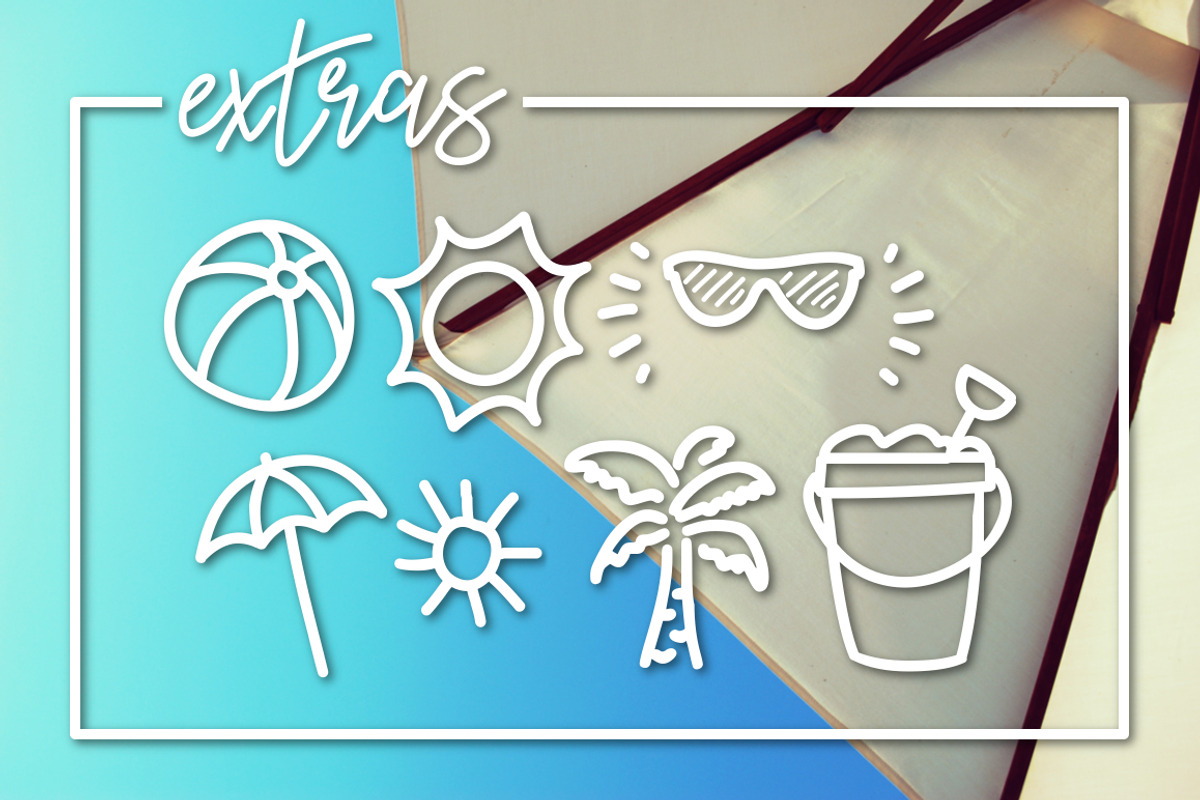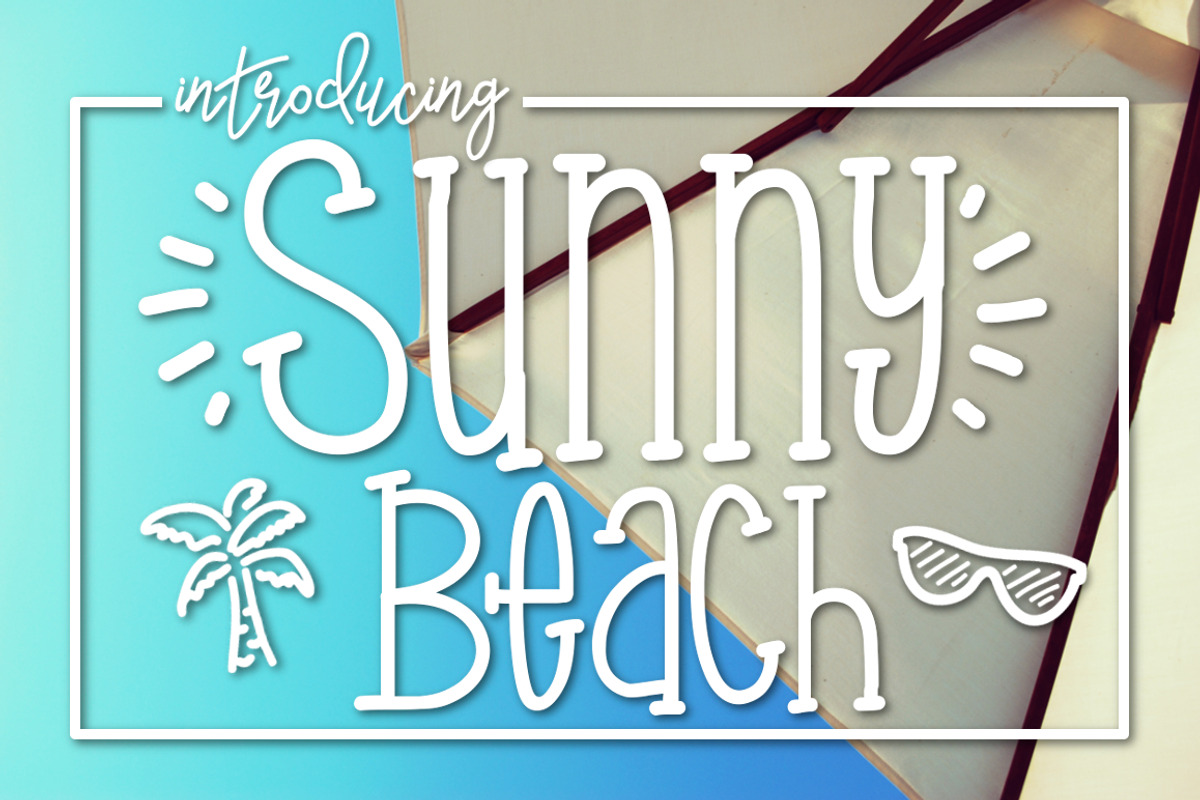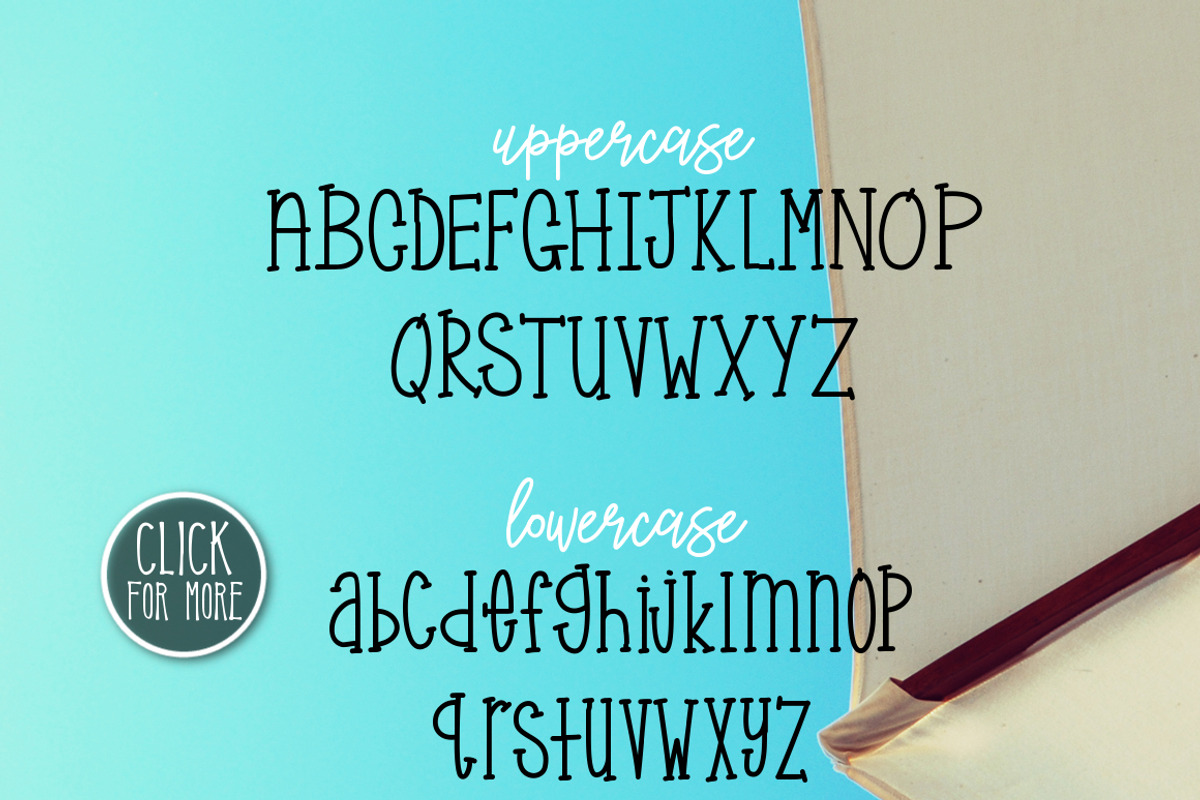
Sunny Beach a Handwritten Typeface
This font is perfect to add to any project.
Why Sunny Beach a Handwritten Typeface is worth a look
Sunny Beach a Handwritten Typeface by Kitaleigh fits naturally into Branding, posters, packaging, typography.